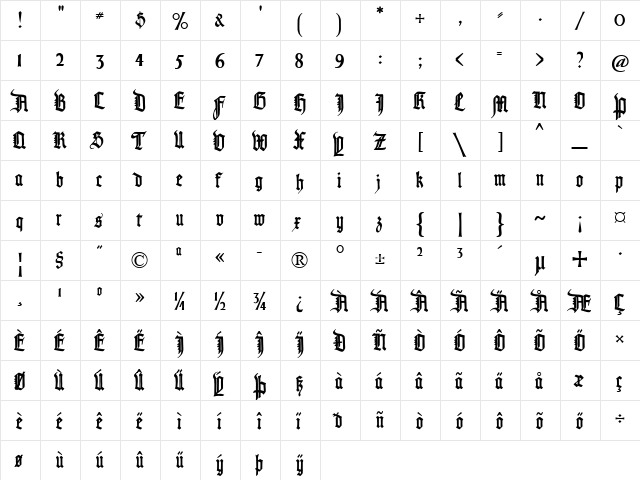
Pommern Gotisch Regular
| Foundry | Peter Wiegel |
Design Context for Pommern Gotisch Typeface
Pommern Gotisch is a composed and adaptable typeface that performs quietly and consistently across a wide range of design contexts.